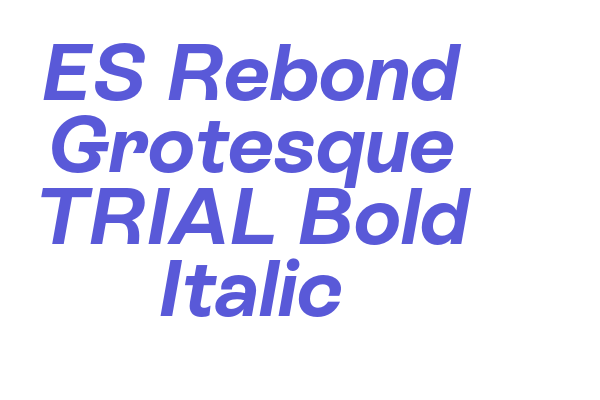
ES Rebond Grotesque TRIAL Bold Italic is a modern and bold sans serif font designed by Roger Gaillard. With its sleek and stylish design, this font is perfect for making a statement in headlines, titles, and branding materials. The bold italic style adds a touch of sophistication and emphasis to any design project.
Font Name: ES Rebond Grotesque TRIAL Bold Italic
Designer: Roger Gaillard
Font Family: ES Rebond Grotesque TRIAL